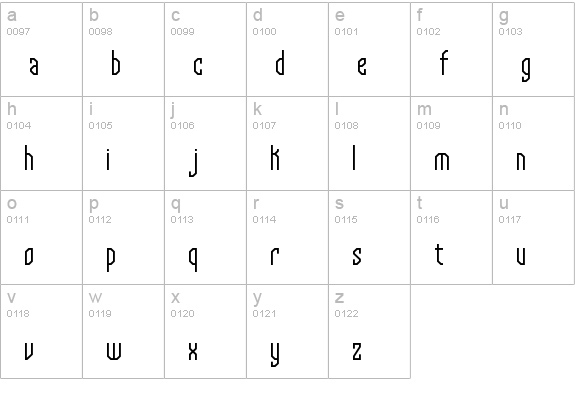
The Supra Genius Lines BRK font is a modern and sleek typeface that exudes creativity and innovation. Its unique design features sharp, geometric lines that give it a bold and dynamic look. Perfect for adding a touch of sophistication to any project, this font is sure to make a statement. What sets Supra Genius Lines BRK apart is not just its striking appearance, but also the fact that it is available for free download at FontsMarket.com. This means that you can easily access this stylish font and use it in your designs without any cost. Whether you're working on a branding project, poster design, or website layout, Supra Genius Lines BRK will elevate your work with its contemporary and eye-catching aesthetic. Download Supra Genius Lines BRK today from FontsMarket.com and unleash your creativity with this cutting-edge font that is both visually captivating and freely accessible.